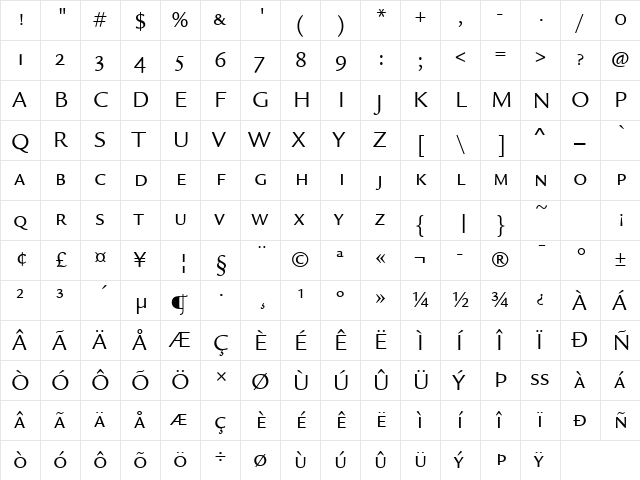
Legacy Sans SC ITC TT Book
Design Context for Legacy Sans SC ITC TT Typeface
Legacy Sans SC ITC TT takes a measured approach to typography — its balanced proportions and neutral character make it a reliable workhorse for both digital and print work.